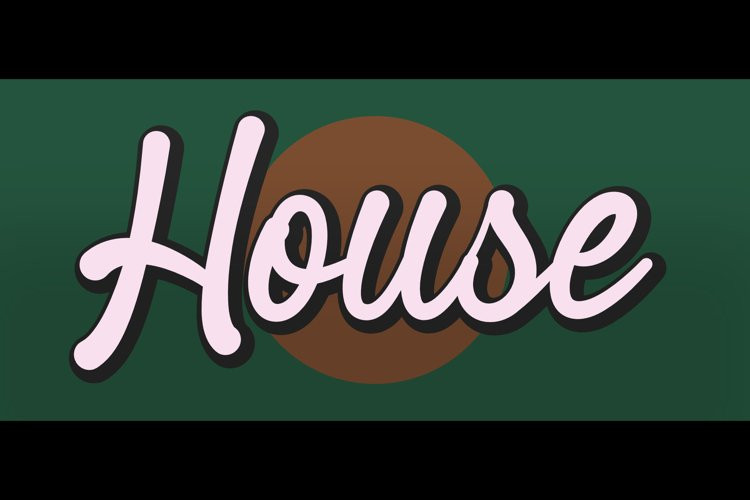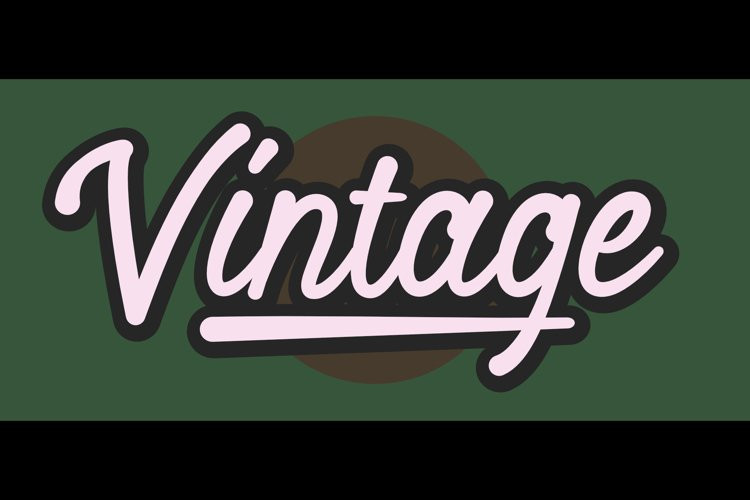
Kansas Font
Hello everyone, introduce my font. “Kansas Retro” font is made with great taste. Bean fonts are very suitable to be placed on your project such as for weddings, printing, advertising, campaigns, posters, book titles, and so on.